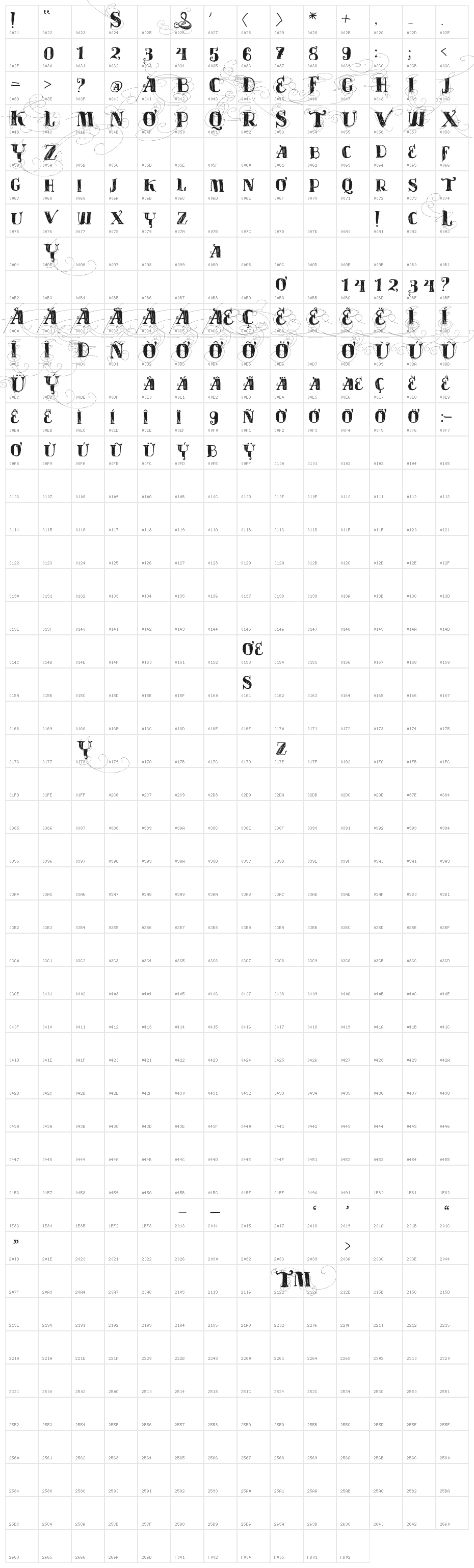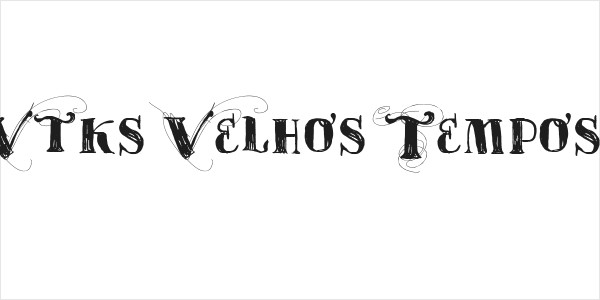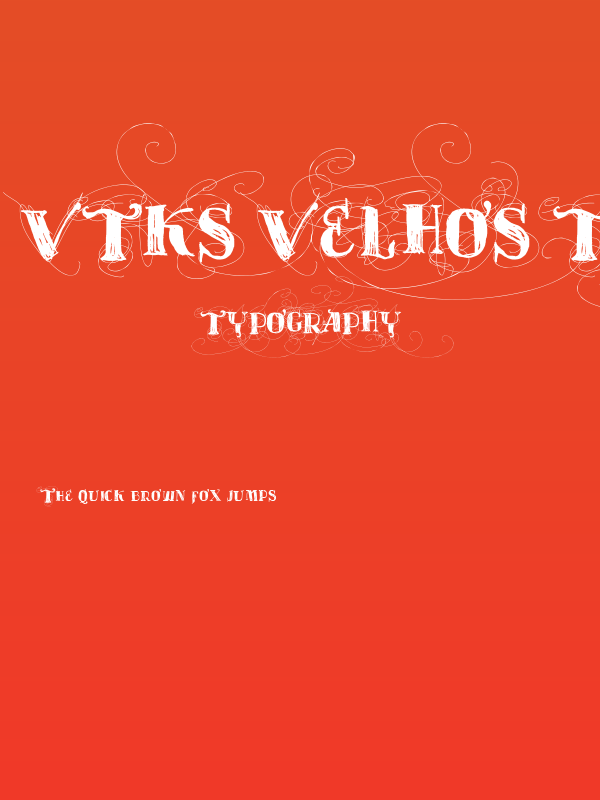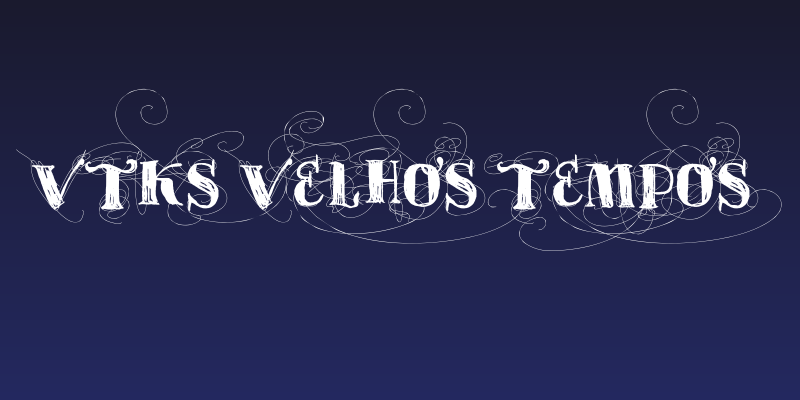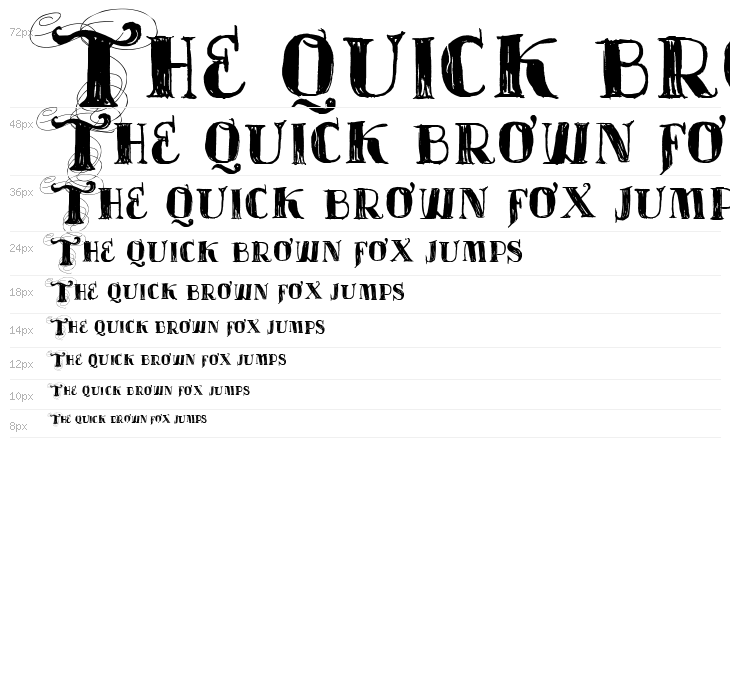
Vtks Velhos Tempos Font
Vtks Velhos Tempos Description
This font features an ornate and decorative style, characterized by elaborate swirls and flourishes that extend from the main strokes of the letters. The uppercase and lowercase letters are bold and dramatic, with a vintage flair that evokes a sense of historical elegance. The numbers and special characters maintain this intricate design, making the font suitable for artistic and expressive projects. The overall appearance is reminiscent of old-world typography, with a touch of whimsy and fantasy.
| Overall Style | Vintage, Decorative |
| Use Case | Headlines, Logos, Artistic designs |
| Proposed Projects | Ideal for vintage-themed posters, invitations, book covers, and artistic designs that require a touch of elegance and drama. |